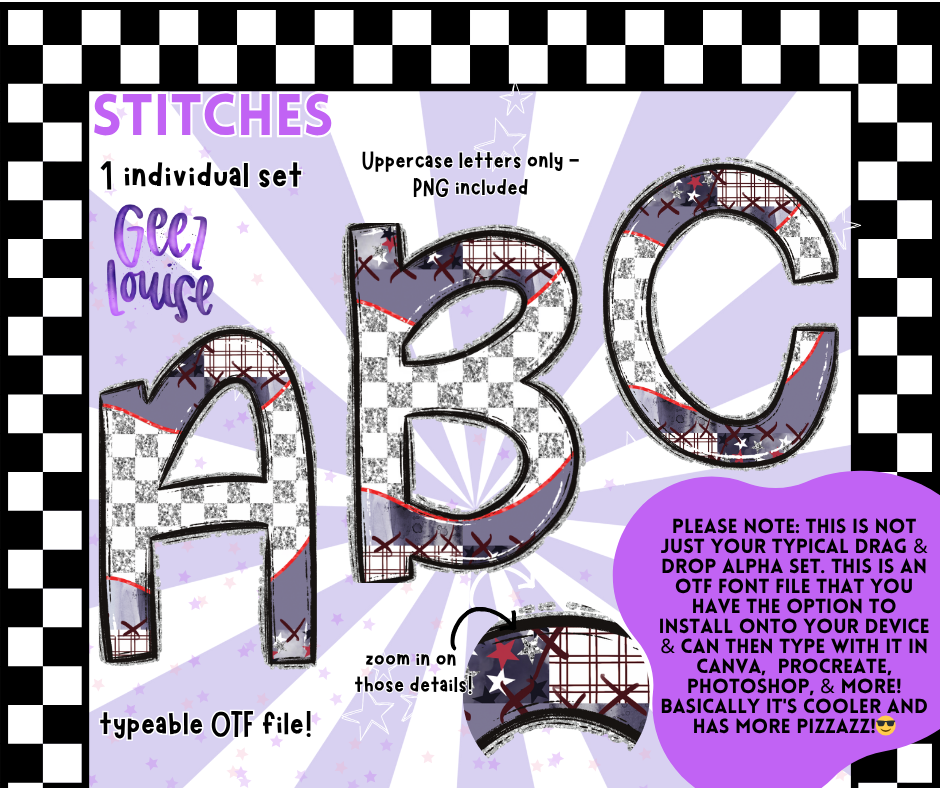
Patchwork punk meets pixel-perfect precision. STITCHES is a full uppercase font stitched with checkerboard flair, cozy textures, and chaotic charm. It’s not just an alpha set—it’s a typeable OTF file, installable and ready to thread through your favorite design apps.
High-res stitched details that hold up at any size
🧸 Why It Hits Different:
STITCHES is for creators who love a little mess with their magic. Whether you’re designing merch, zines, social posts, or digital spells, this font adds instant texture, nostalgia, and stitched-up sweetness. It’s installable, editable, and totally extra.